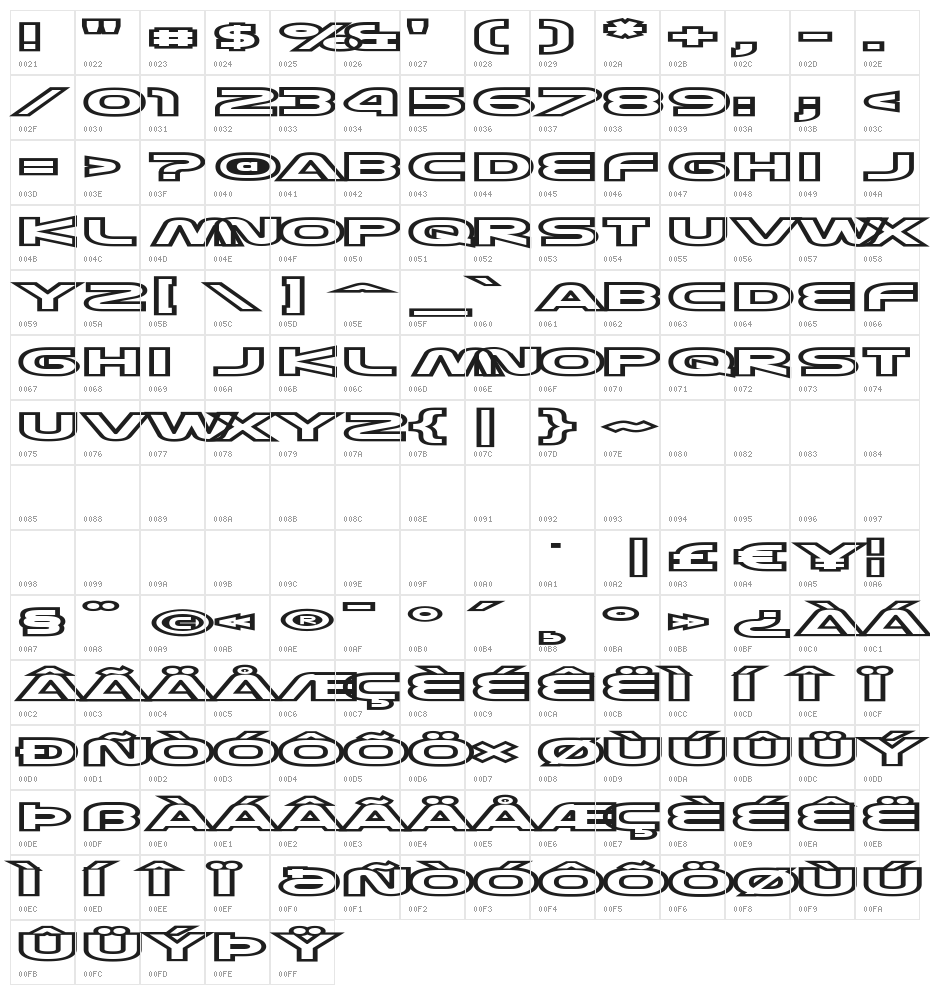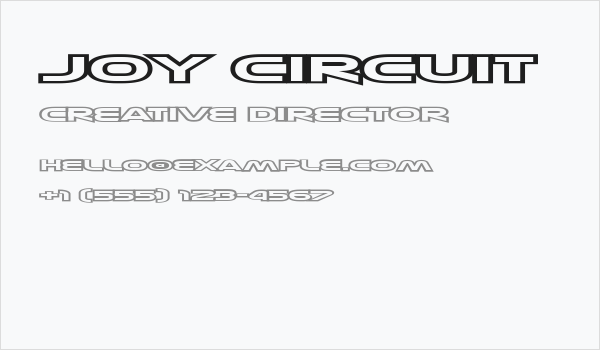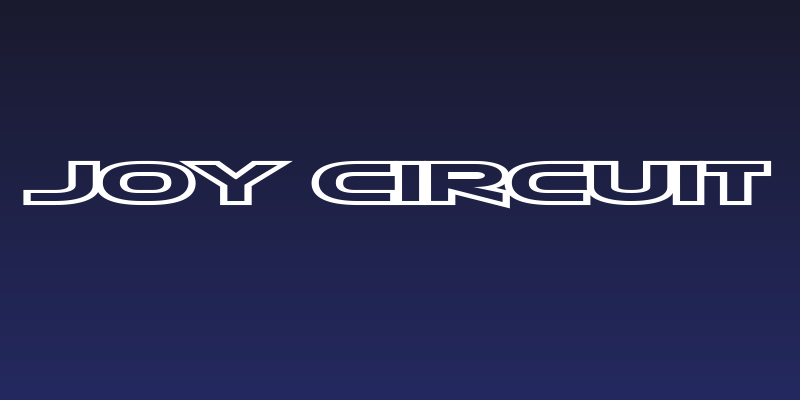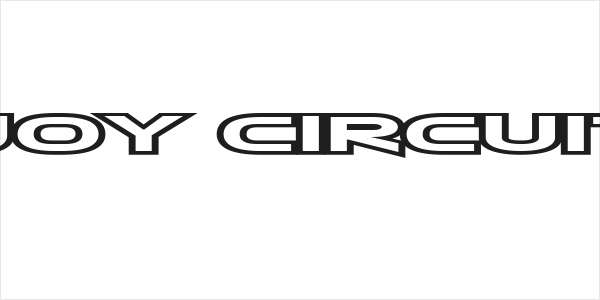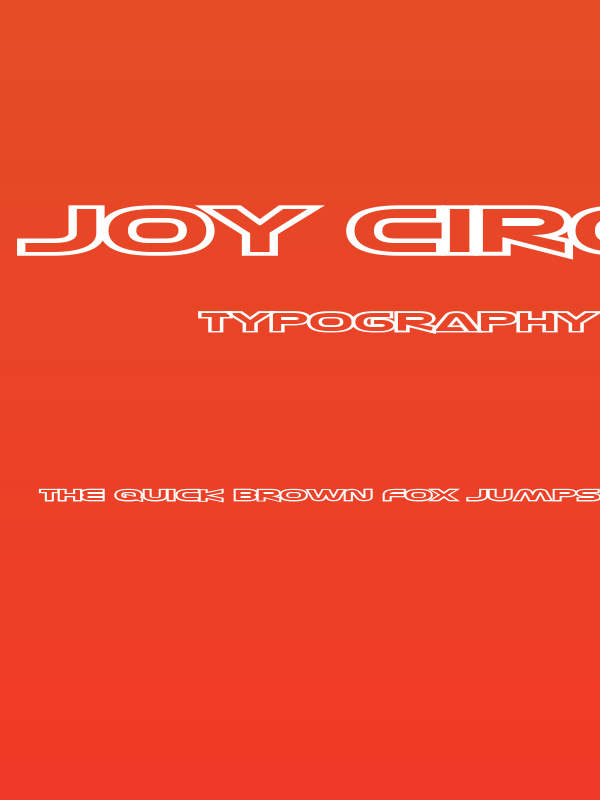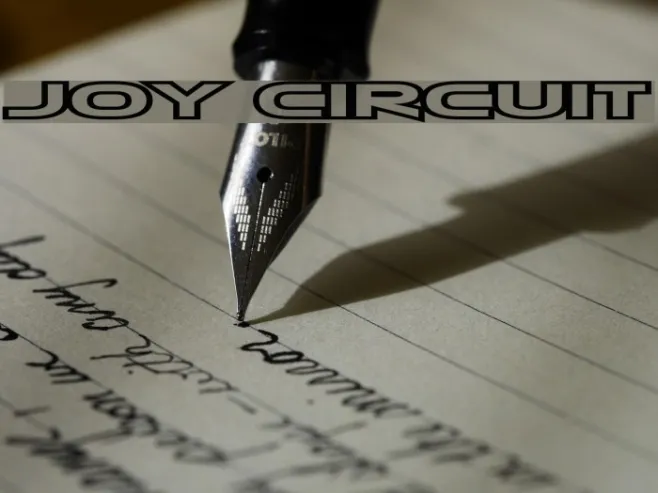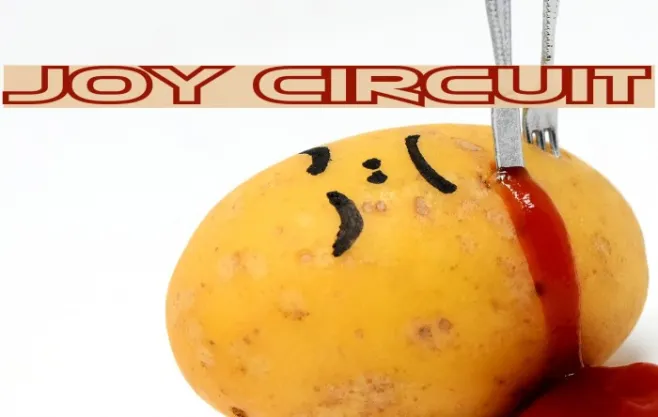
Joy Circuit Font
Joy Circuit Description
This font features a futuristic and geometric design, characterized by bold, angular lines and a distinct outline style. The uppercase letters are particularly striking, with sharp edges and a sense of movement, making them ideal for attention-grabbing headlines. The numerals and special characters maintain this dynamic aesthetic, ensuring consistency across all glyphs. The font's unique style is reminiscent of digital or sci-fi themes, making it suitable for projects that require a modern and technological feel. Its bold presence and clear legibility make it versatile for various design applications.
| Proposed Projects | Ideal for sci-fi themed designs, technology branding, video game titles, and futuristic posters. |